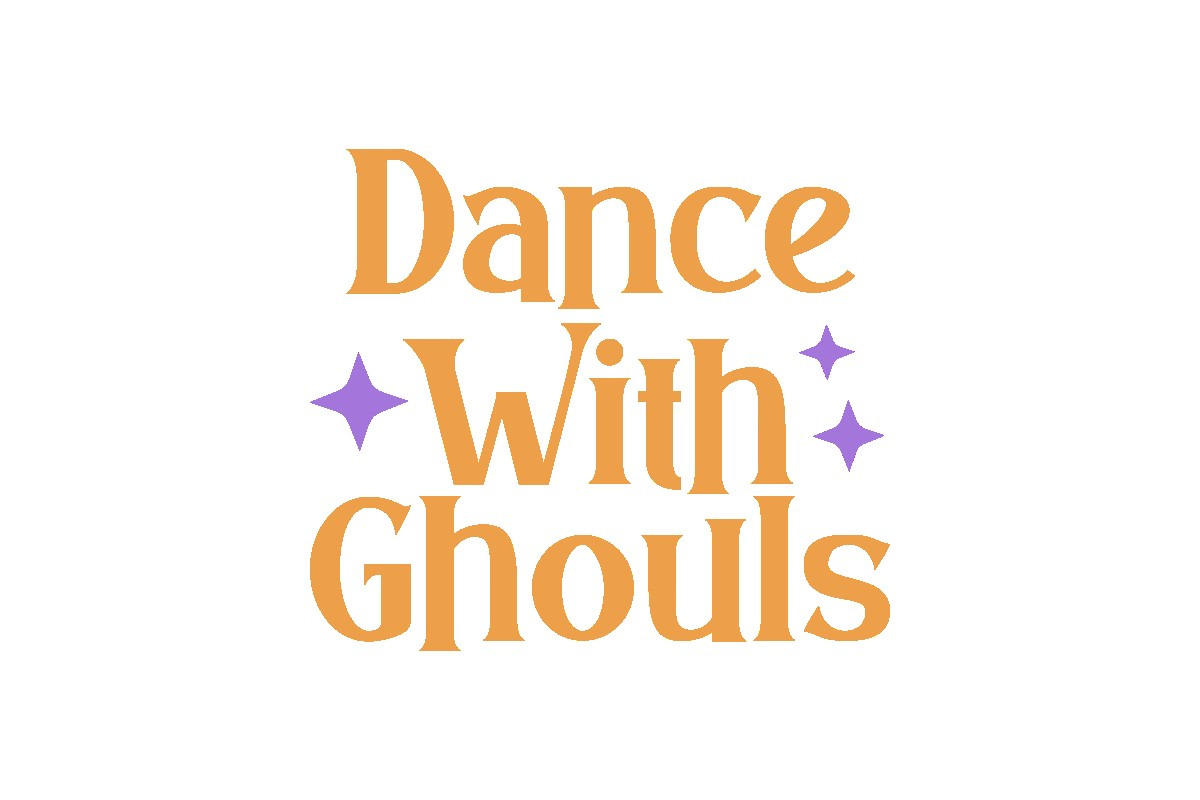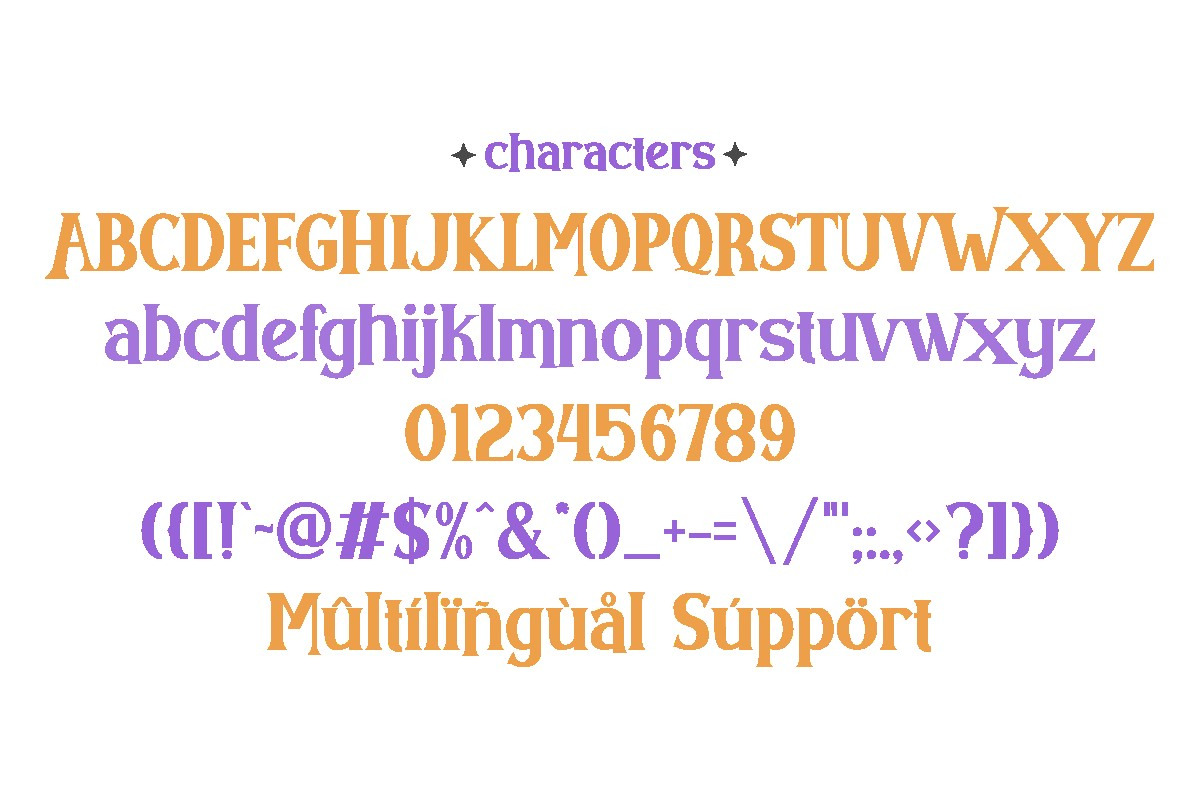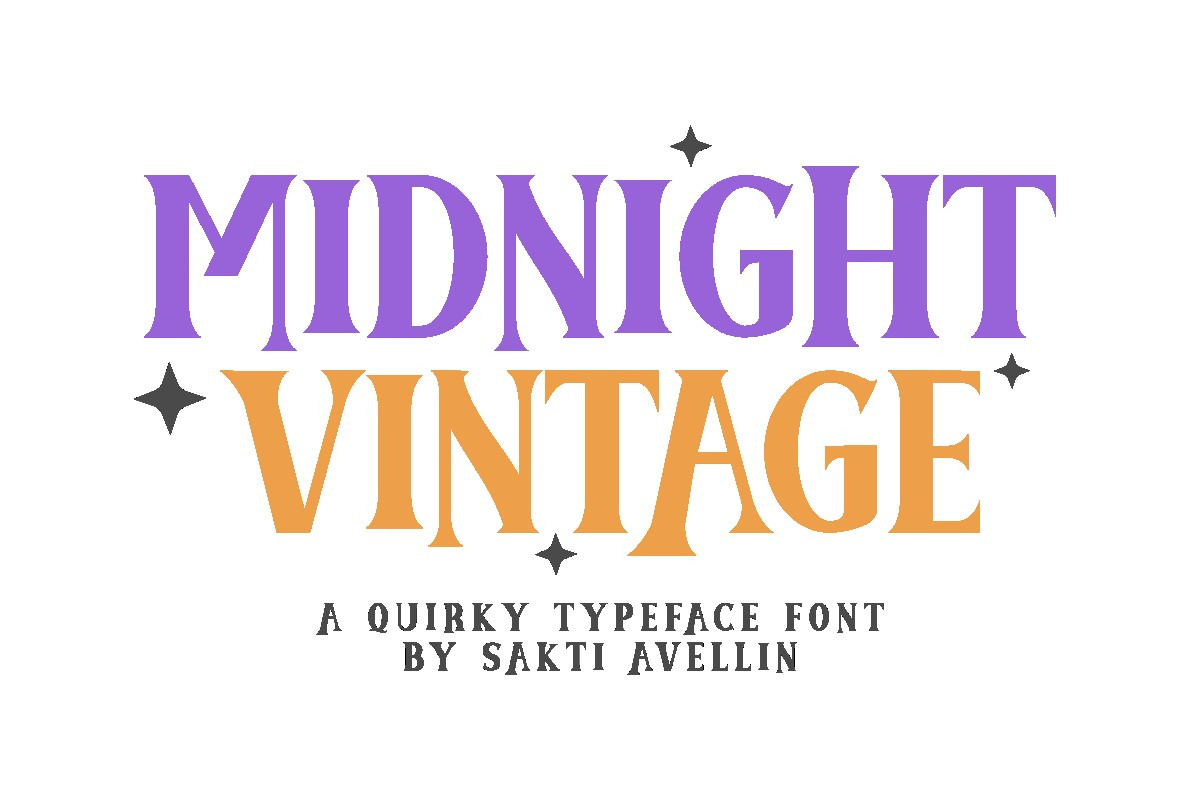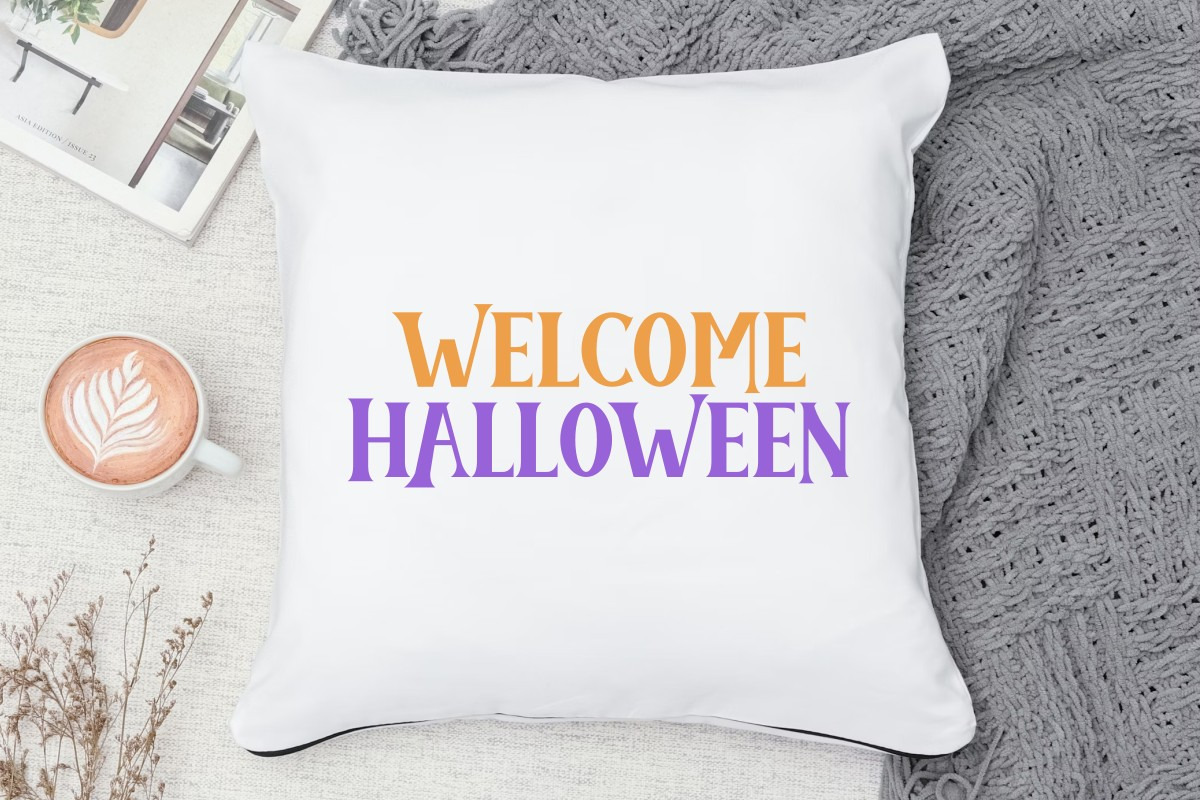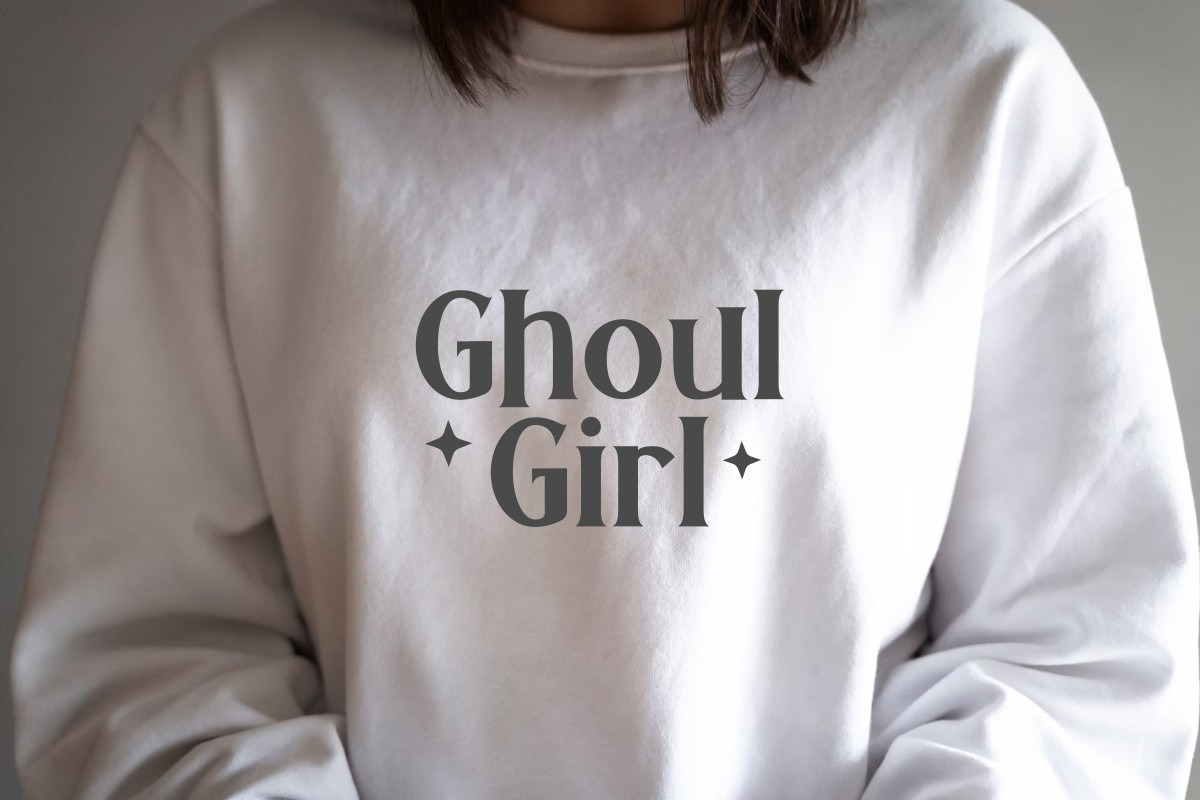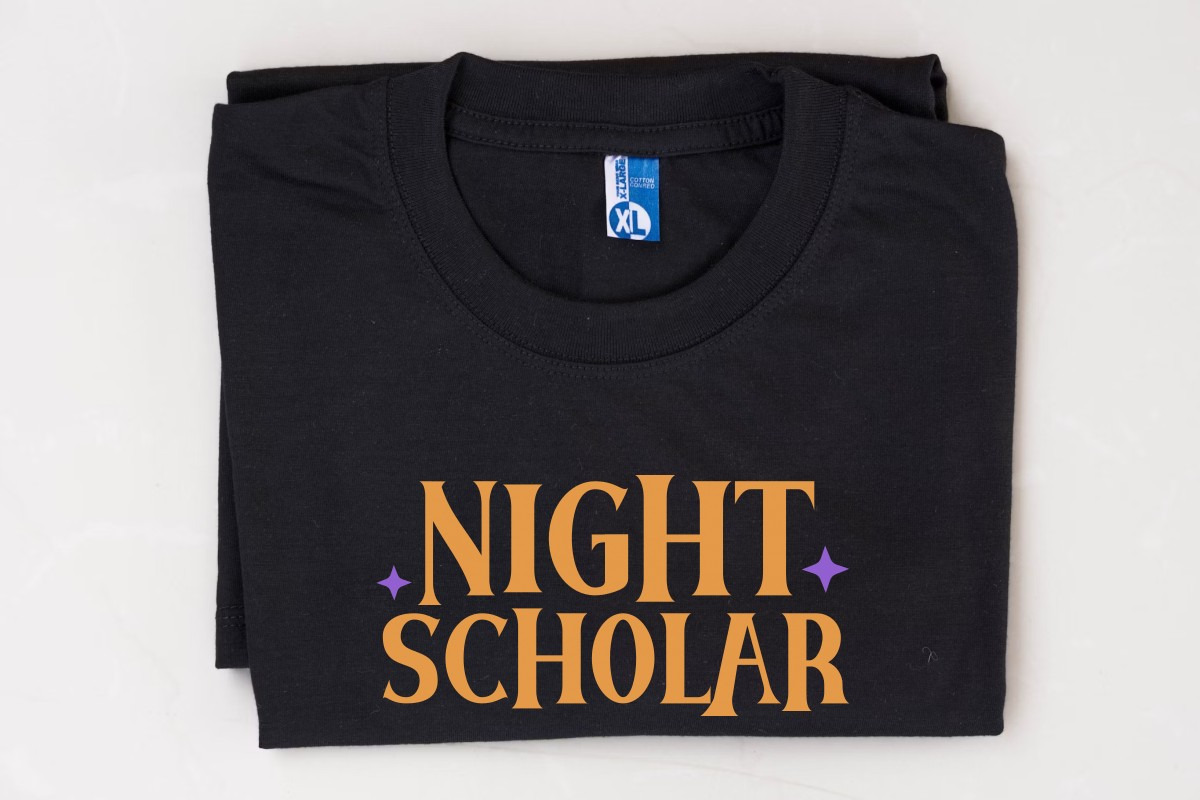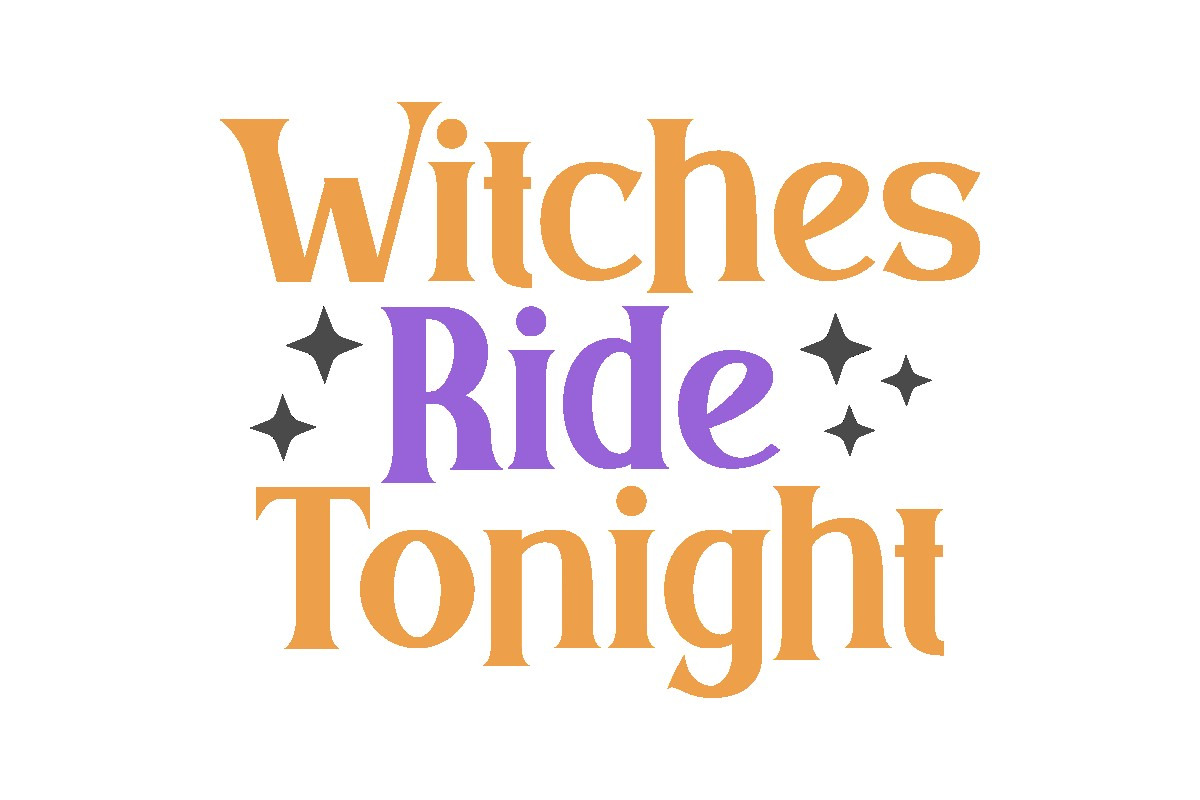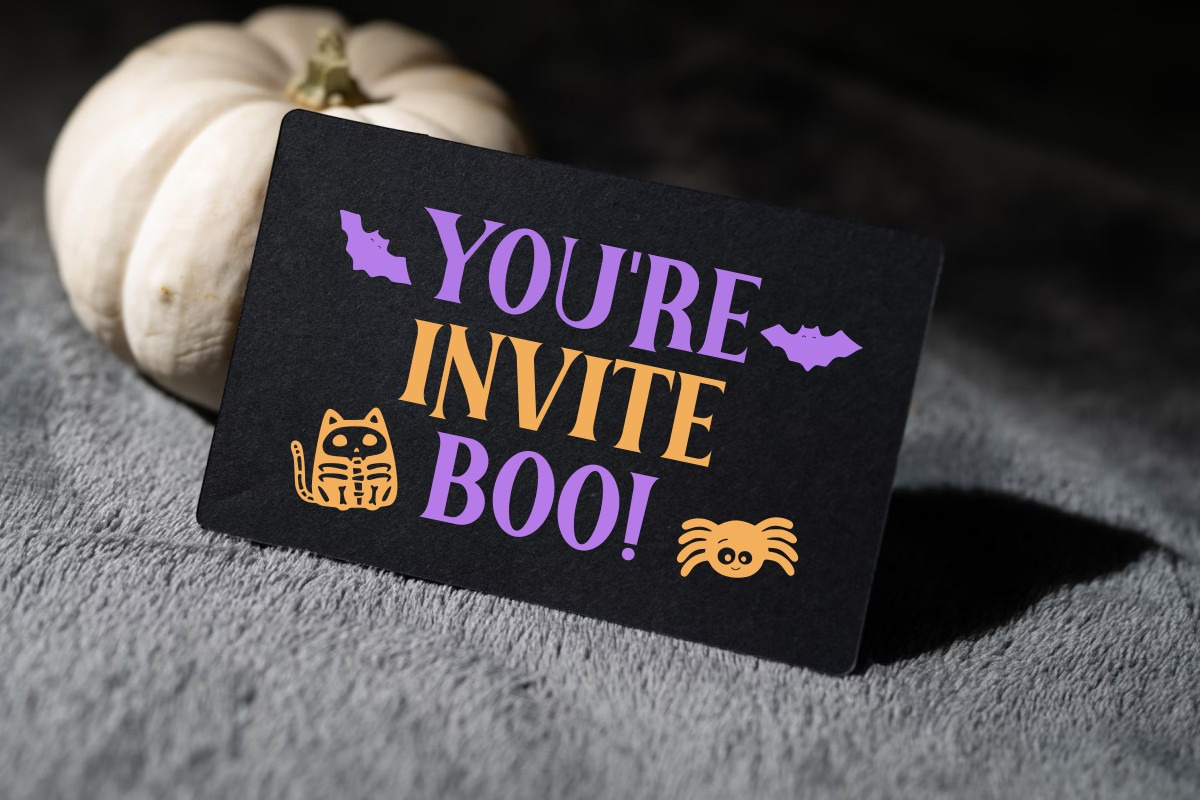
Midnight Vintage - Quirky Typeface
Midnight Vintage is a high-impact and quirky typeface font designed to bring a unique, mystical energy to your creative projects. This vintage display font features sharp angles, varied stroke weights, and elegant flair, making it an essential choice for mystical branding, retro posters, edgy headlines, and enchanting book covers. Its tall and rhythmic letterforms ensure it stands out as a powerful decorative typeface for product packaging and social media graphics, perfect for designers seeking a mix of classic vintage charm and bold, quirky personality. Elevate your storytelling with the enchanting and timeless spirit of Midnight Vintage!